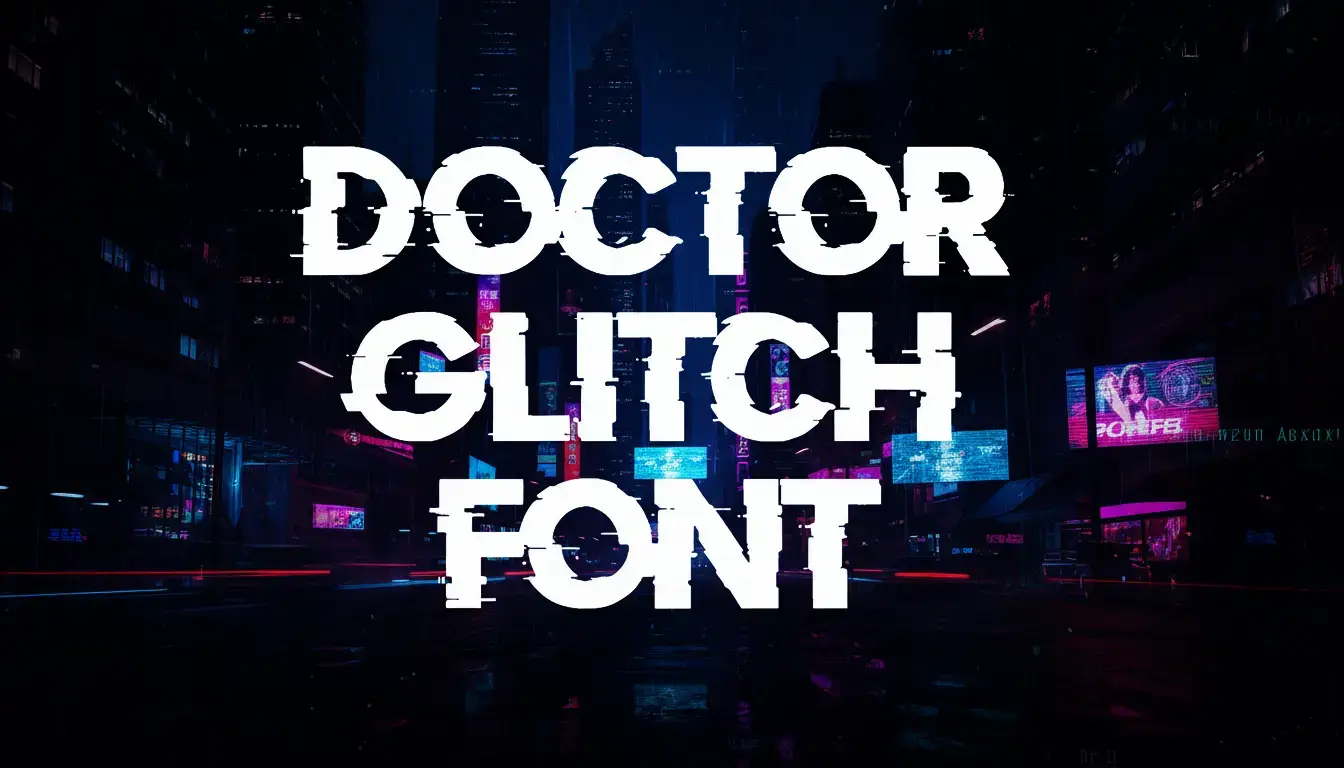
Doctor Glitch Font
Doctor Glitch is a fancy font. It's a decorative display font with plenty of personality, made to grab attention. It's a free download, and you can try it with your own text in the preview above first.
You get every letter from A to Z in both cases and all the numbers from 0 to 9, which means Doctor Glitch can handle full sentences, dates and prices. Everyday marks like &, !, ? and @ are there too. Thanks to its accented letters, it also works for Spanish, French, German, Portuguese and Italian, not just English.
Think of Doctor Glitch for posters, logos and eye-catching headlines. Use it for one standout word or headline and let simpler fonts handle the rest.
Yes. Doctor Glitch includes the accented letters needed for Spanish, French, German, Portuguese and Italian, so it works for more than just English.